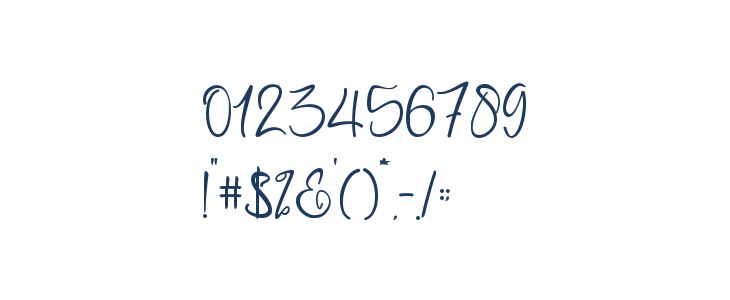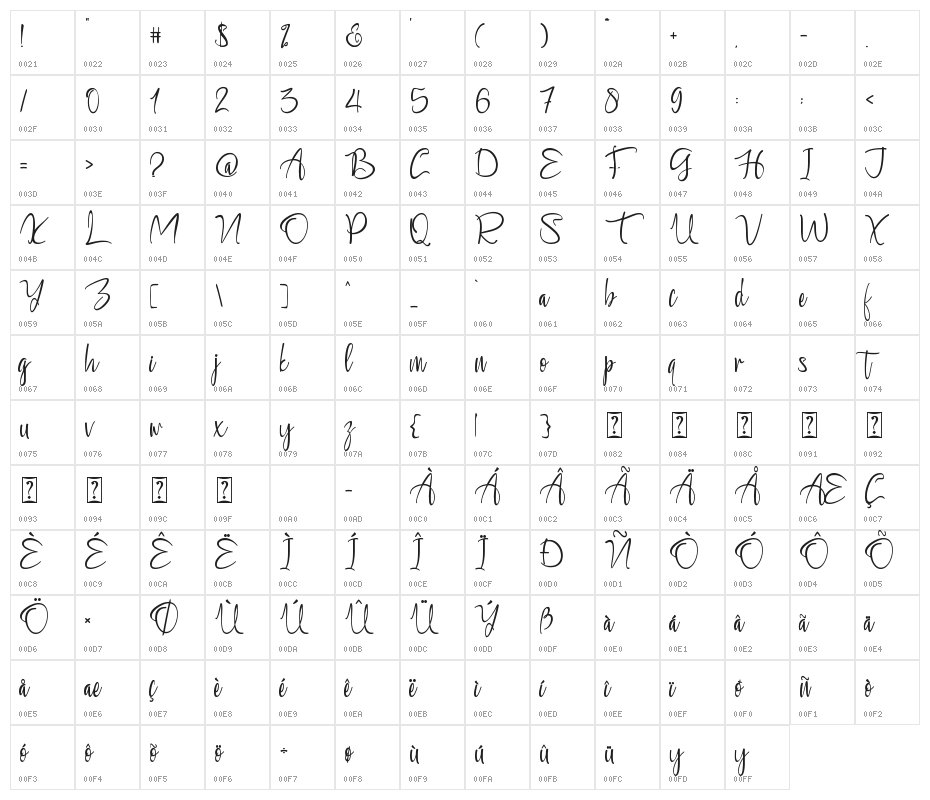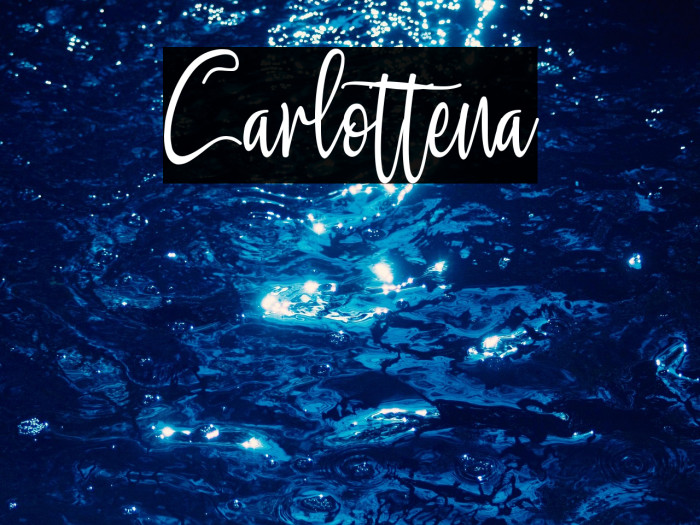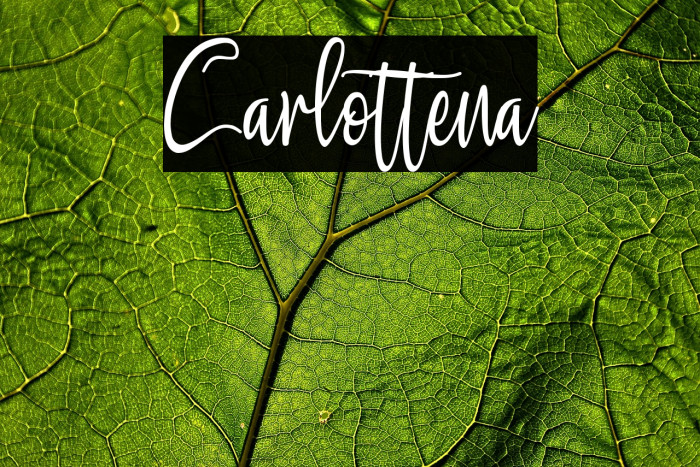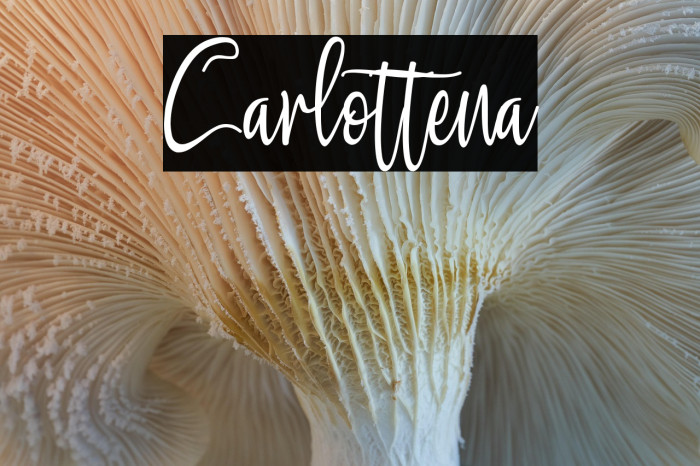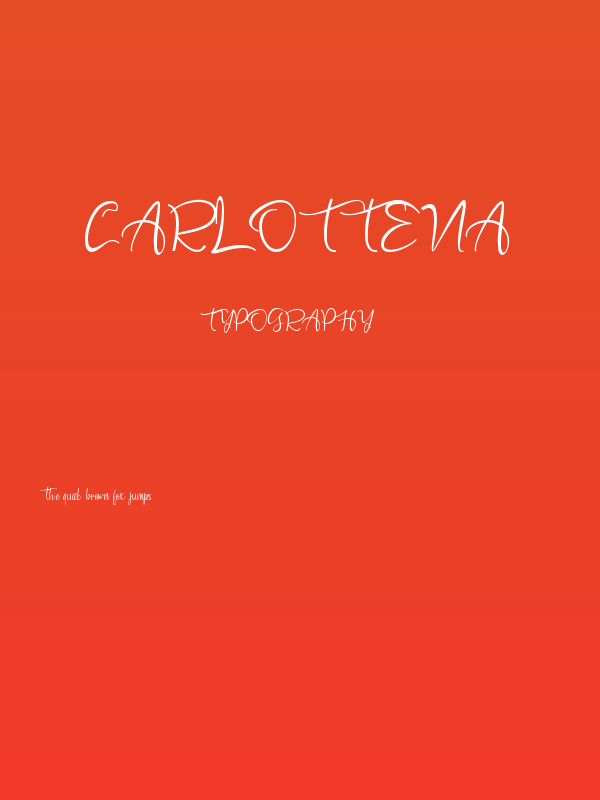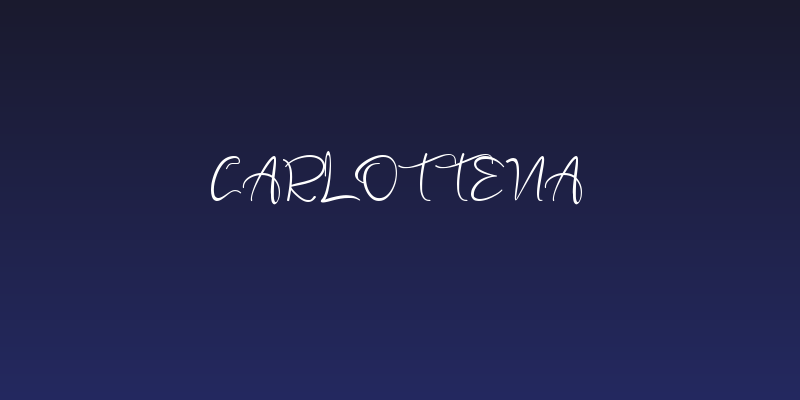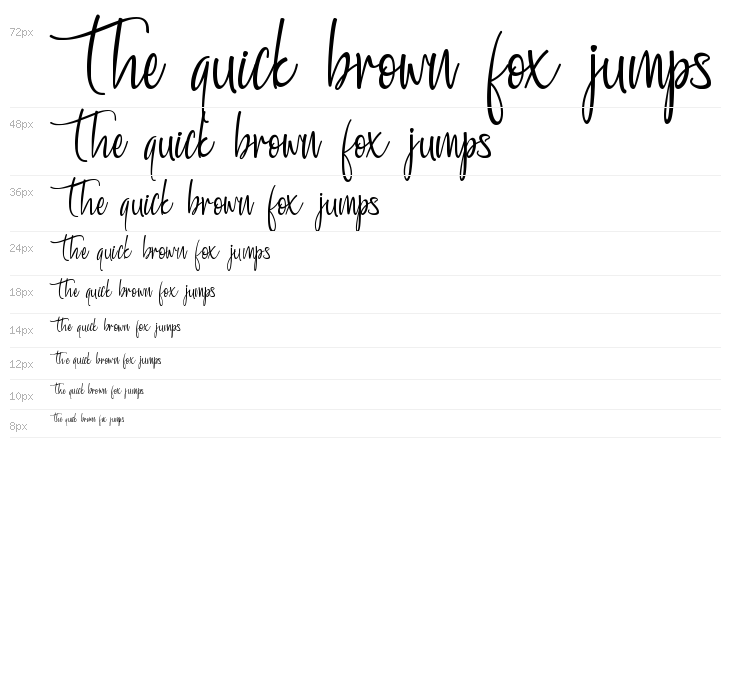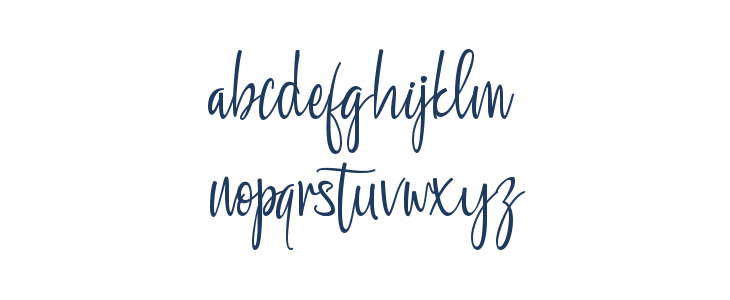
Carlottena Font
Carlottena Description
This font features an elegant and flowing script style, characterized by its smooth, cursive lines and artistic flair. The uppercase letters are distinct with their sweeping curves and loops, while the lowercase letters maintain a consistent flow, enhancing readability. The numerals and special characters are crafted with the same attention to detail, ensuring a cohesive look across all text. The font's overall appearance is both sophisticated and playful, making it suitable for a variety of creative applications. Its unique style is perfect for adding a personal touch to any design project.